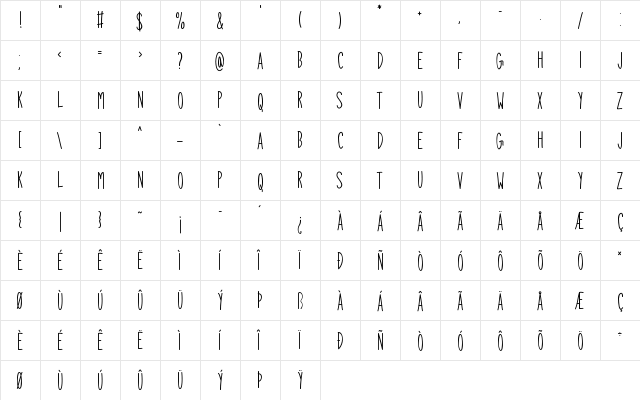
Dokrak Regular
Design Context for Dokrak Typeface
Dokrak offers clean, dependable letterforms without strong stylistic allegiance, making it a practical choice for designers who need flexibility.